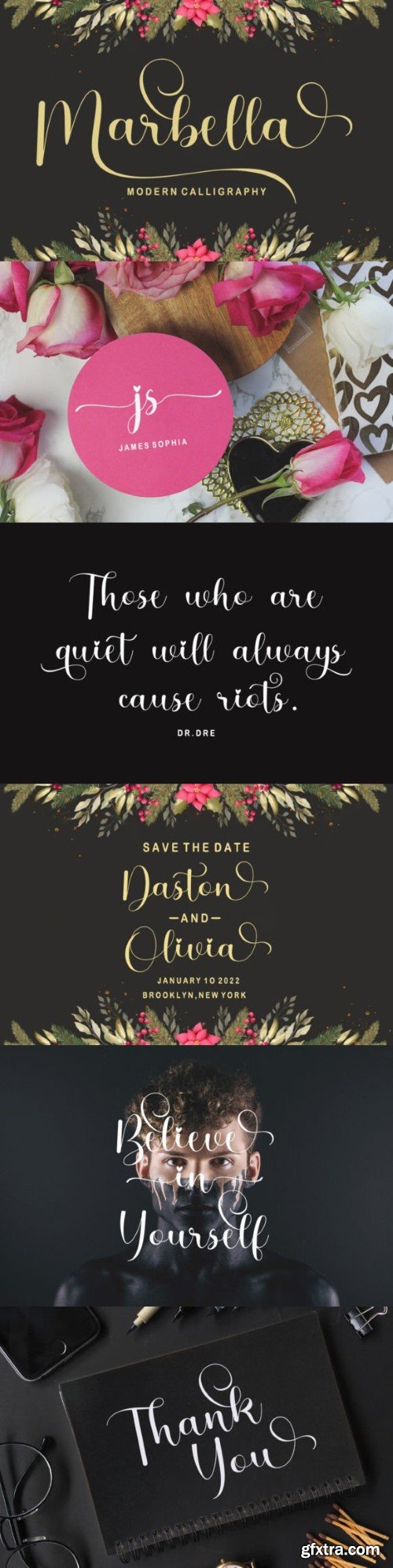
马贝拉字体
Marbella is a stylish and incredibly elegant handwritten font. It looks stunning on wedding invitations, thank you cards, quotes, greeting cards, logos, business cards, and every other design which needs a handwritten touch.